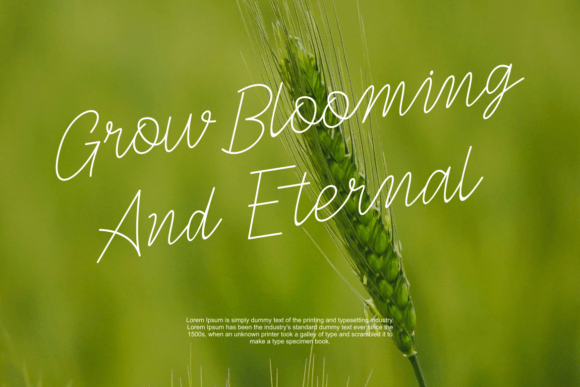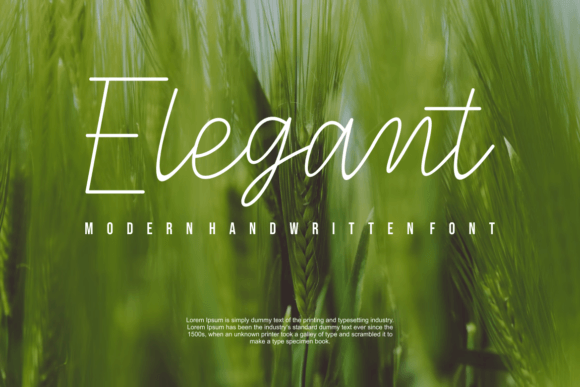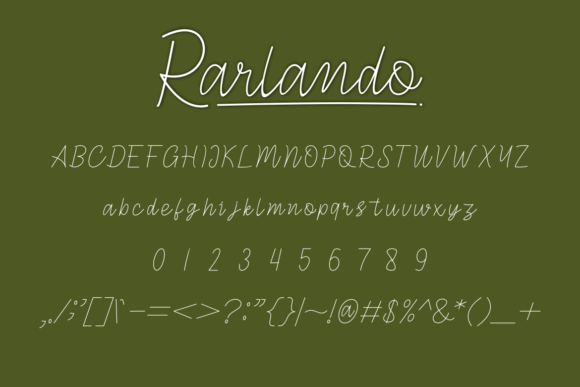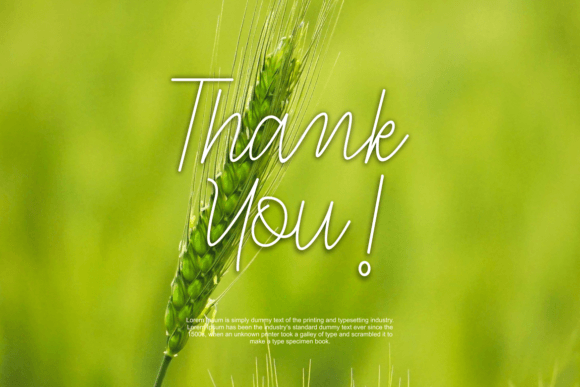
Introduction to Rarlando Font
As designers, we’ve all been there – staring at a blank canvas, searching for the perfect font to bring our creative project to life. It’s that moment of clarity, when the right font clicks, and our design begins to take shape. For many of us, that moment has arrived with the Rarlando Font, a beautiful and timeless handwritten font that’s perfect for creating eye-catching logos, branding, and quotes.
The Rarlando Font is more than just a design resource – it’s a key to unlocking the unique personality of your brand. With its transparent background and high-quality design, this font is a valuable addition to any designer’s toolkit. Whether you’re working on a small project or a large-scale campaign, the Rarlando Font is sure to elevate your design and make it stand out from the crowd.
Key Features of Rarlando Font
- High-quality design resource ideal for creative projects requiring a unique aesthetic.
- Unique, eye-catching design makes Rarlando Font an excellent choice for branding and advertising materials.
- Perfect for digital and print-based creative projects, including logos, posters, and business cards.
Honest Review: Rarlando Font
I recently stumbled upon the Rarlando Font while searching for a unique design resource for a creative project. At first glance, I was impressed by its quirky and playful vibe.
- ✨ The font’s high-quality design makes it perfect for creative projects that require a touch of whimsy.
- ⚠️ The font may not be suitable for formal or professional projects, as it’s a bit too playful for those types of designs.
- ⚠️ The font’s unique style may not appeal to everyone, so it’s essential to test it in your design before committing.
Overall, I think the Rarlando Font is a great addition to any designer’s toolkit. It’s perfect for creative projects that require a bit of personality and flair. With its high-quality design and free download option, it’s definitely worth checking out.
Rarlando Font is a versatile and high-quality design resource ideal for creative projects. It features a transparent background, making it easy to incorporate into various designs.
Rarlando Font is ideal for a variety of creative projects, including:
Marketing materials, such as brochures and business cards.
Web design, including website headers and footers.
Print design, including posters and flyers.